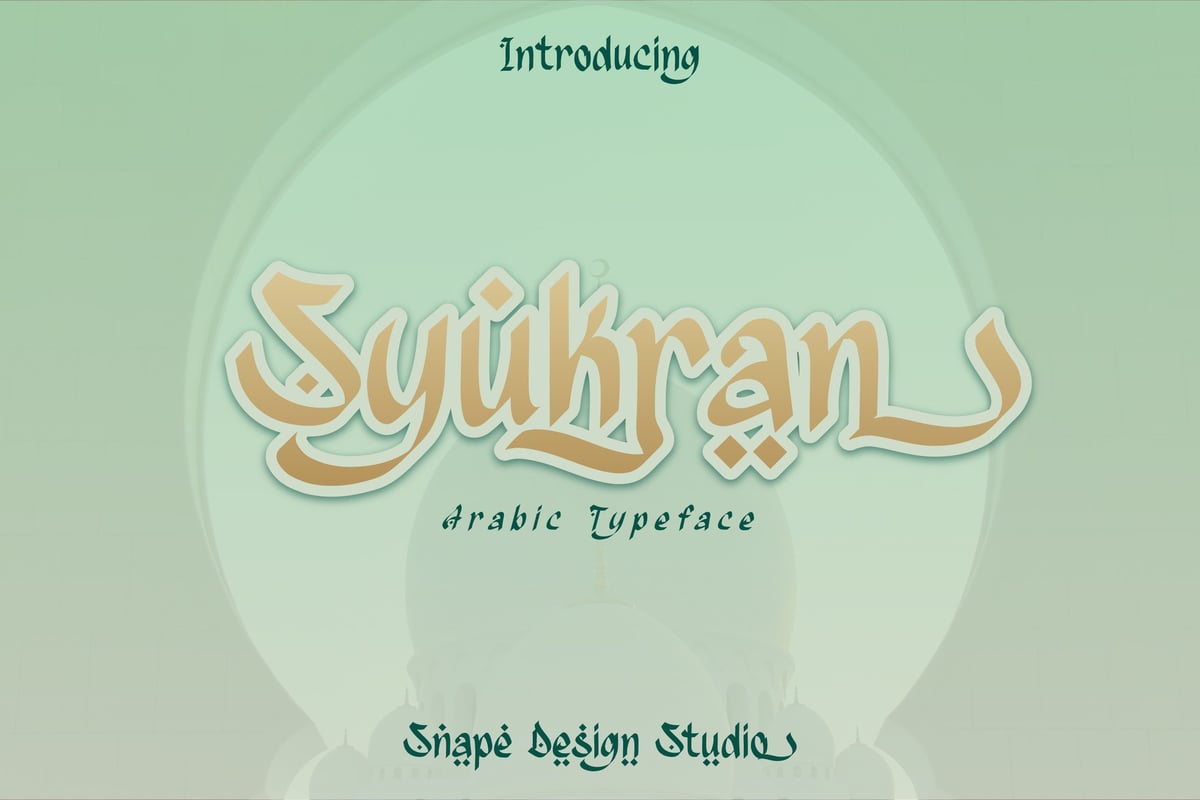
Syukran - Arabic Typeface
Bring authentic Middle Eastern flair to your designs with this striking Arabic-inspired display font. Syukran captures the elegant style and cultural essence of traditional Arabic typography, making it perfect for projects that need an authentic Middle Eastern aesthetic. This decorative typeface adds instant character and sophistication to your creative work. Ideal applications include: Movie titles and film credits Documentary projects Logo design Poster artwork Game interfaces and titles Book ...